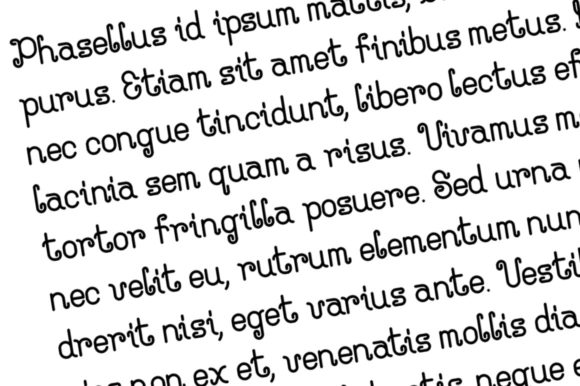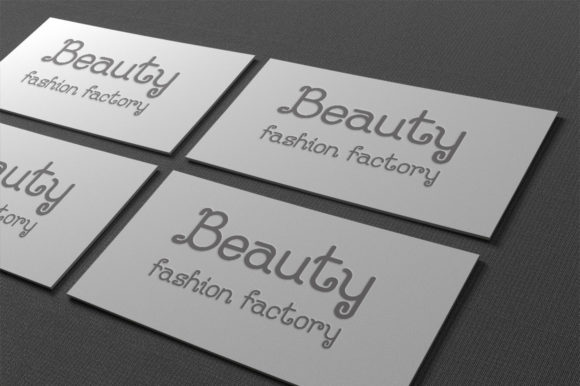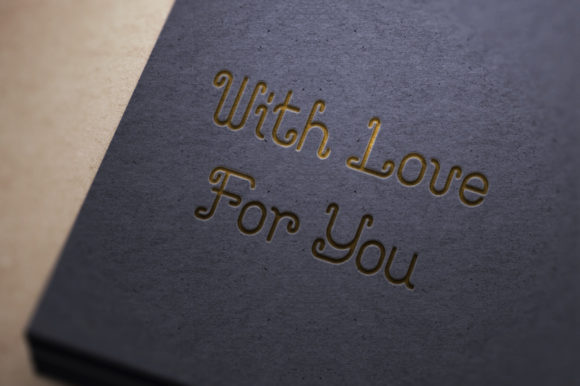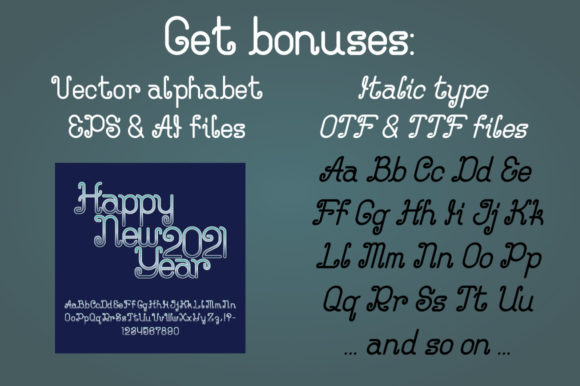
Curlittos Font: The Ultimate Chic and Whimsical Display Font for Your Design Projects
Are you tired of using the same old fonts for your design projects? Do you want to add a touch of fun and friendliness to your creations? Look no further than Curlittos Font! This adaptable and versatile font is perfect for designers and crafters who want to add a chic and whimsical touch to their work.
What is Curlittos Font?
Curlittos Font is a display font that is characterized by its unique and playful curls. This font is perfect for headlines, titles, and short text passages, and it’s ideal for a variety of design projects, including posters, flyers, brochures, and social media graphics.
Key Features of Curlittos Font
- Chic and Whimsical Design: Curlittos Font features a unique and playful design that is sure to add a touch of fun and friendliness to your projects.
- Adaptable and Versatile: This font is highly adaptable and can be used for a variety of design projects, from posters and flyers to social media graphics and more.
- Easy to Read: Despite its playful design, Curlittos Font is easy to read, making it perfect for short text passages and headlines.
- High-Quality Design: Curlittos Font is designed with high-quality and precision, ensuring that it looks great in any design project.
Benefits of Using Curlittos Font
There are many benefits to using Curlittos Font for your design projects. Here are just a few:
- Adds a Touch of Fun and Friendliness: Curlittos Font is perfect for designers who want to add a touch of fun and friendliness to their projects.
- Perfect for Creative Projects: This font is ideal for creative projects, such as posters, flyers, and social media graphics.
- Easy to Pair with Other Fonts: Curlittos Font is easy to pair with other fonts, making it perfect for designers who want to create a unique and cohesive look.
- Great for Branding and Marketing Materials: This font is perfect for branding and marketing materials, such as logos, business cards, and brochures.
Who Can Use Curlittos Font?
Curlittos Font is perfect for a variety of designers and crafters, including:
- Graphic Designers: Graphic designers who want to add a touch of fun and friendliness to their projects will love Curlittos Font.
- Digital Artists: Digital artists who want to create unique and eye-catching graphics will love this font.
- Crafters: Crafters who want to add a personal touch to their projects will love Curlittos Font.
- Small Business Owners: Small business owners who want to create a unique and cohesive brand identity will love this font.
How to Use Curlittos Font
Using Curlittos Font is easy! Here are a few tips:
- Use it for Headlines and Titles: Curlittos Font is perfect for headlines and titles, so use it to add a touch of fun and friendliness to your projects.
- Pair it with Other Fonts: This font is easy to pair with other fonts, so experiment with different combinations to find the perfect look for your project.
- Use it for Short Text Passages: Curlittos Font is perfect for short text passages, such as captions and descriptions.
Curlittos Font is a chic, whimsical, and cute display font that is perfect for designers and crafters who want to add a touch of fun and friendliness to their projects. With its adaptable and versatile design, this font is ideal for a variety of design projects, from posters and flyers to social media graphics and more. So why wait? Download Curlittos Font today and start adding a touch of fun and friendliness to your designs!